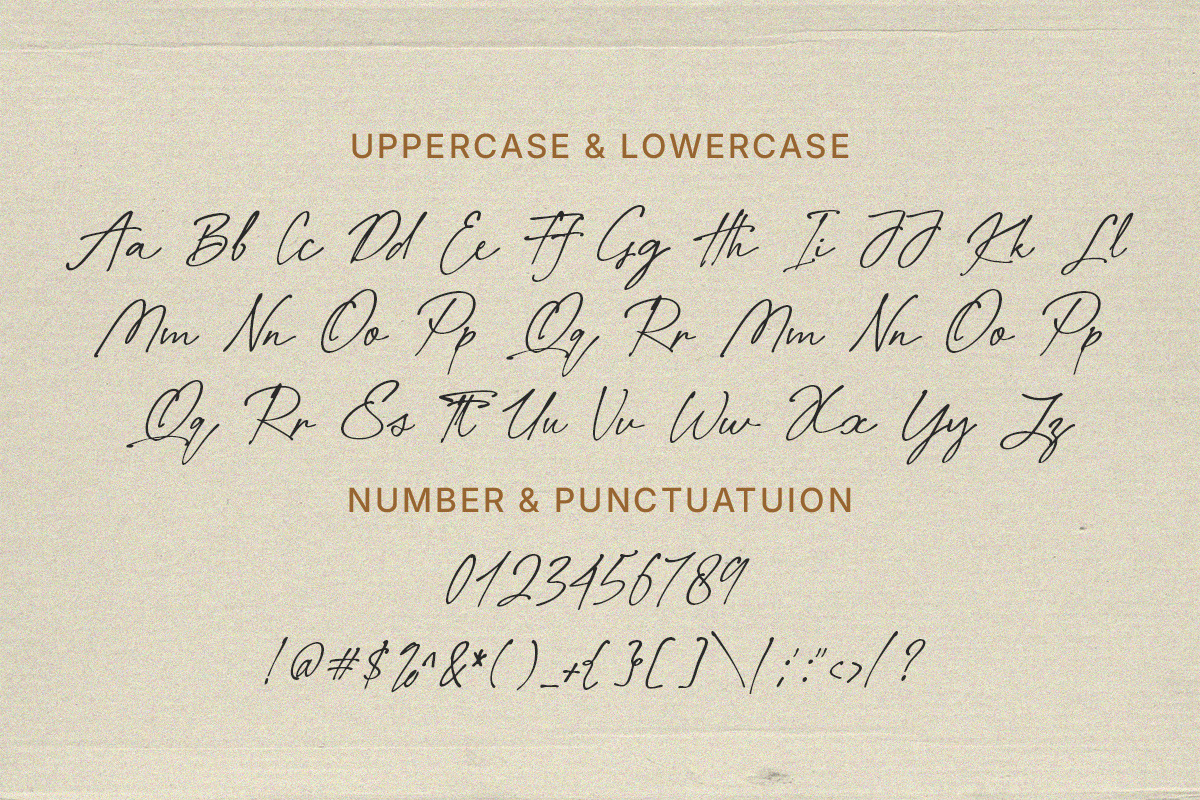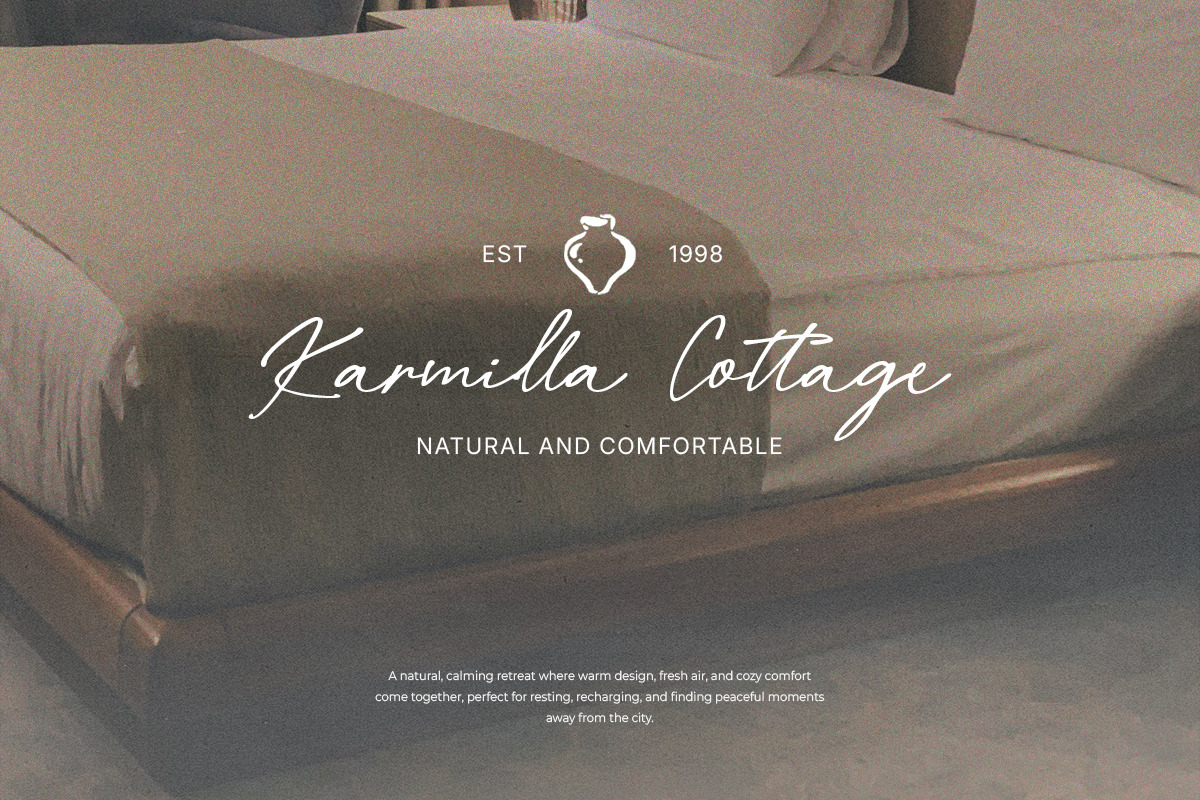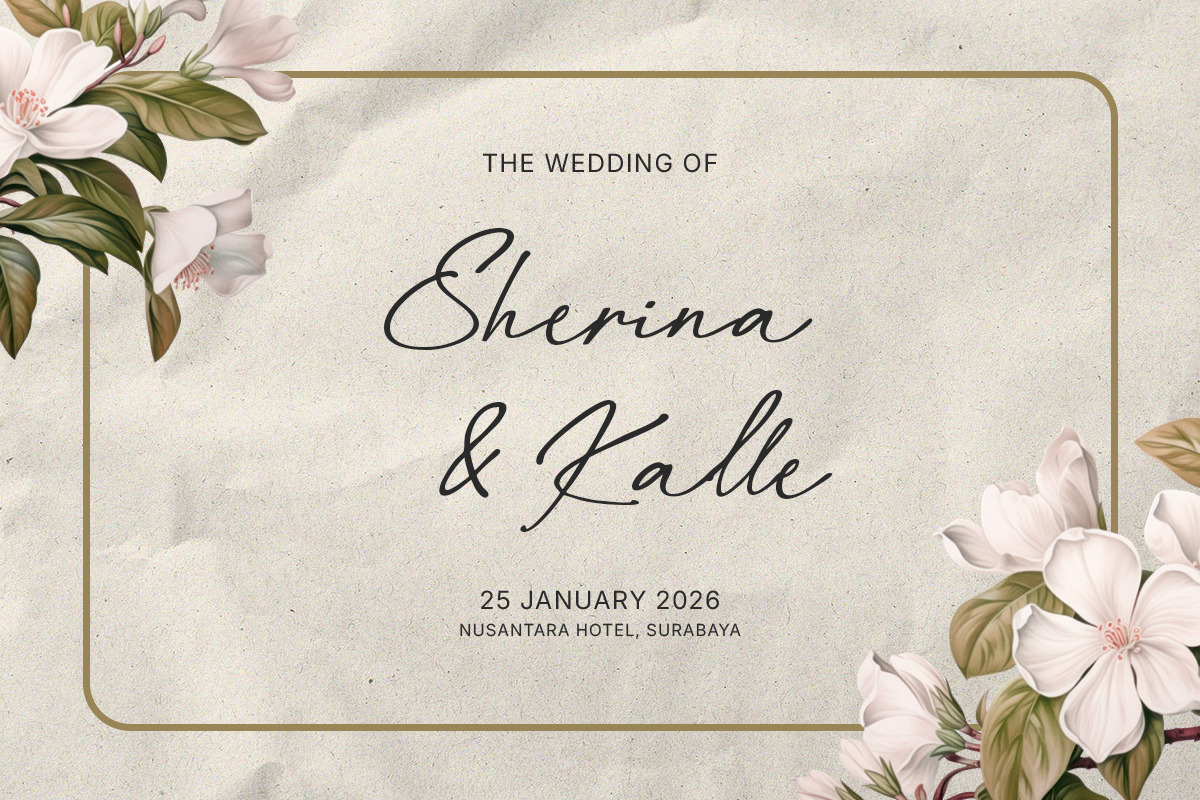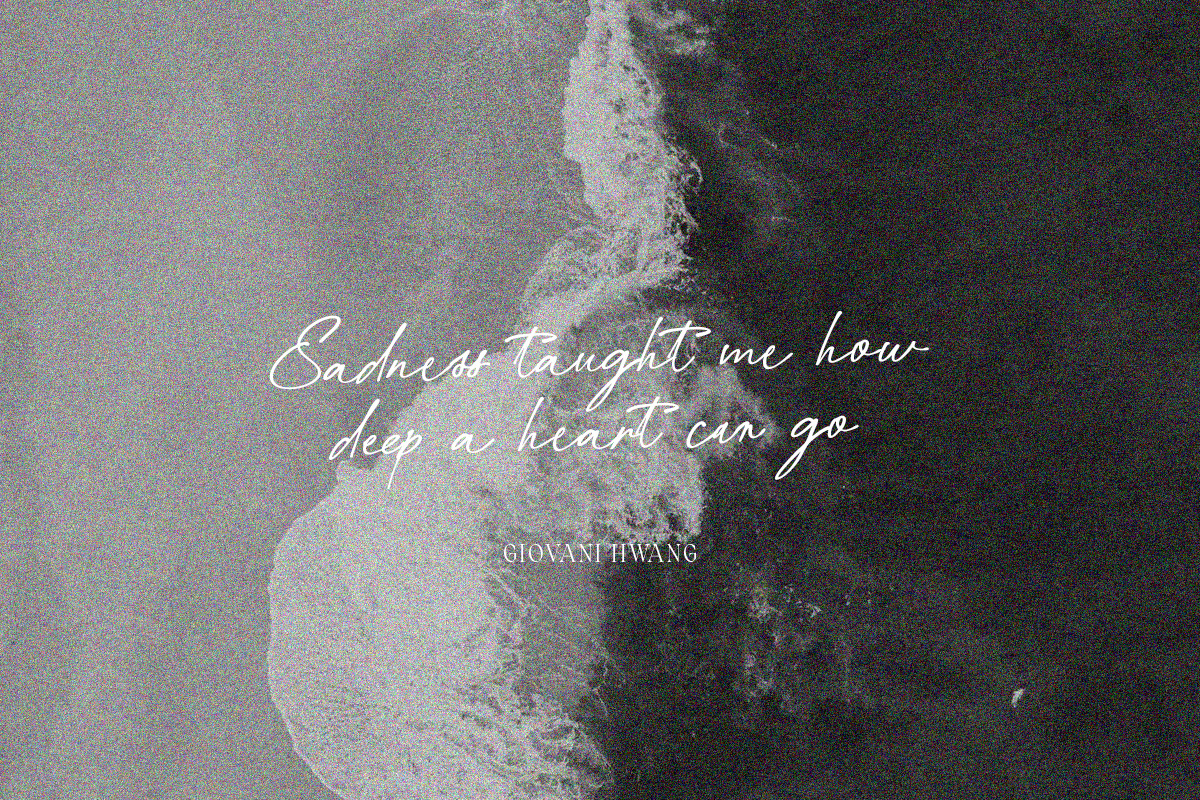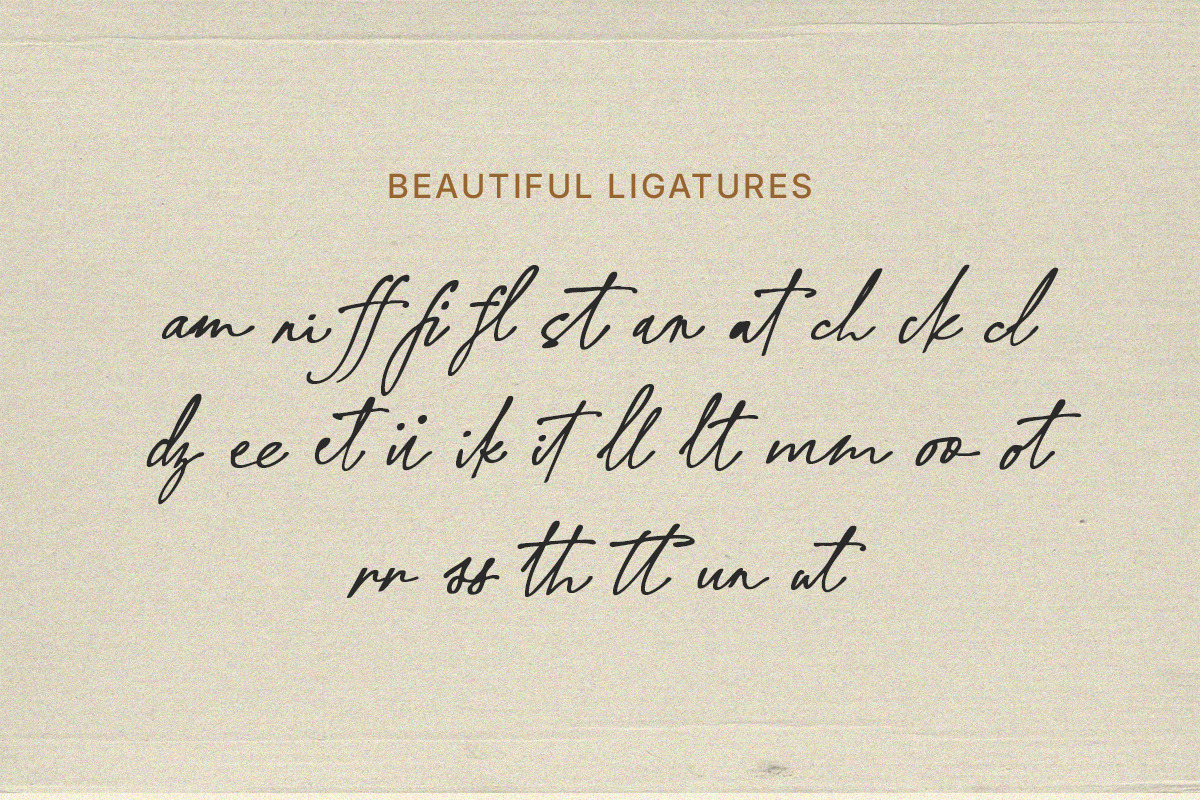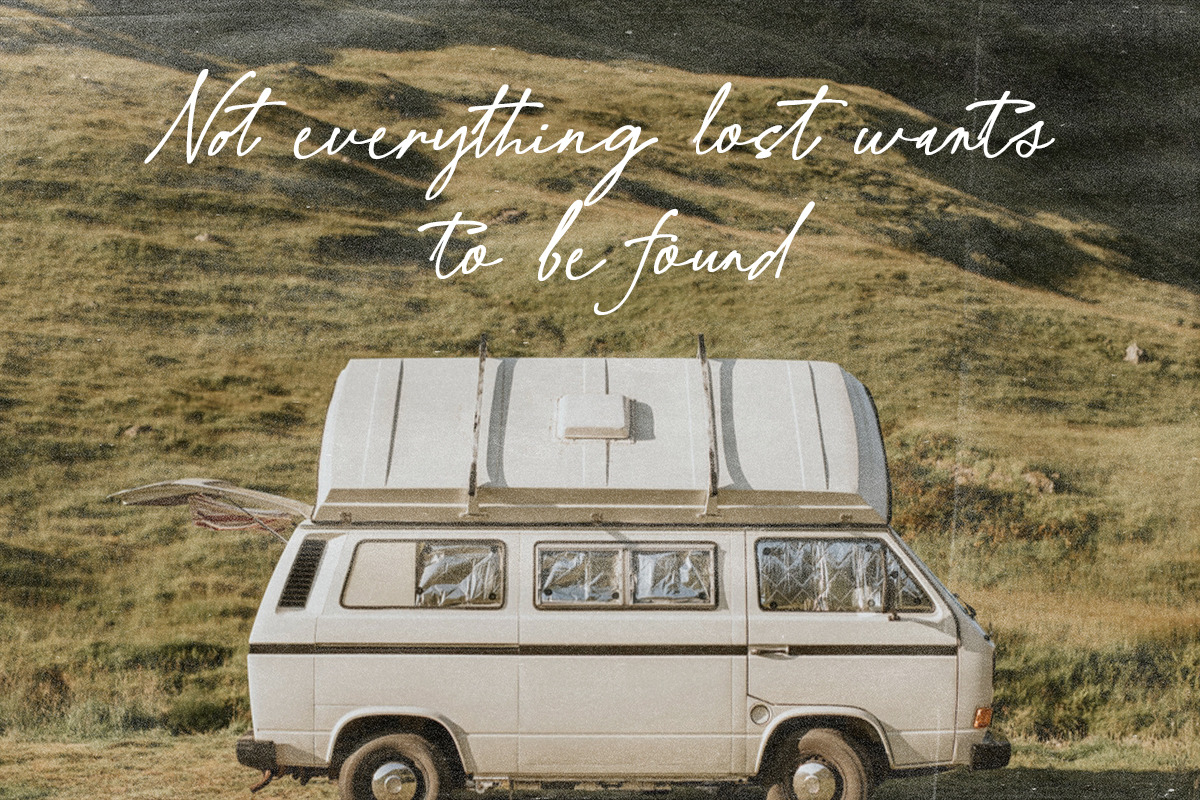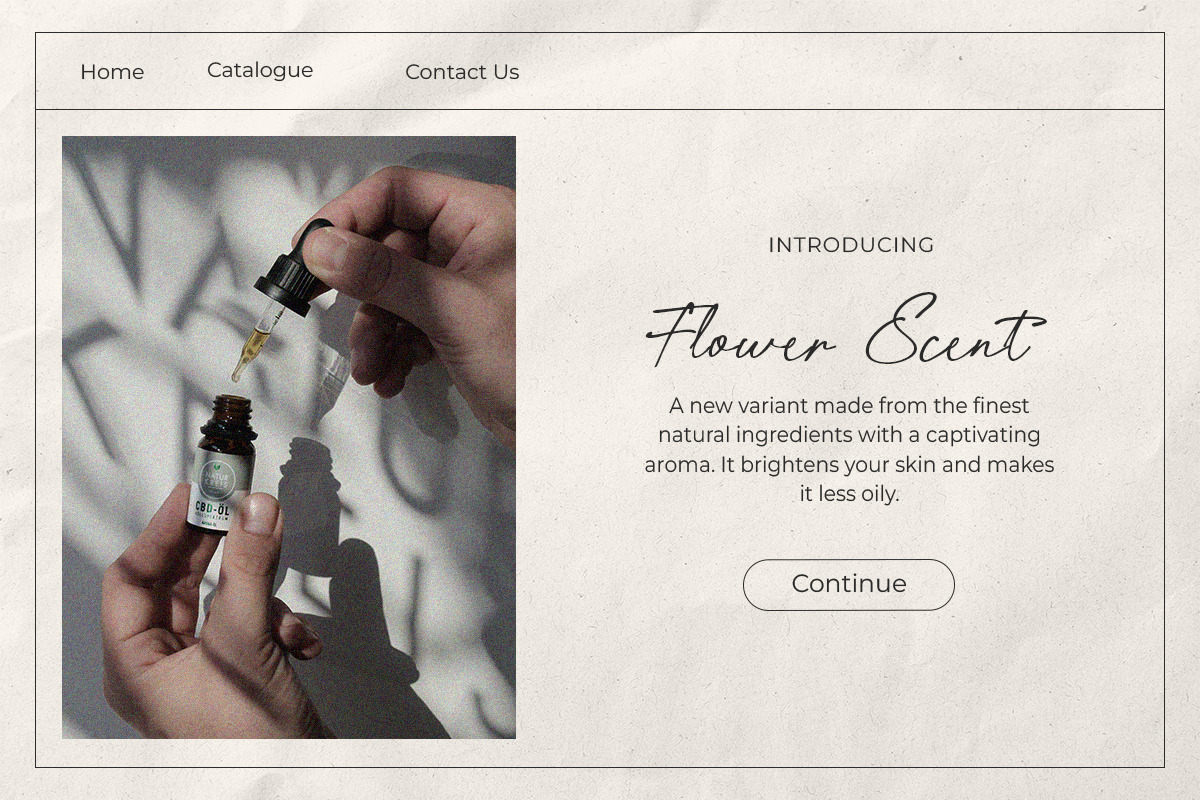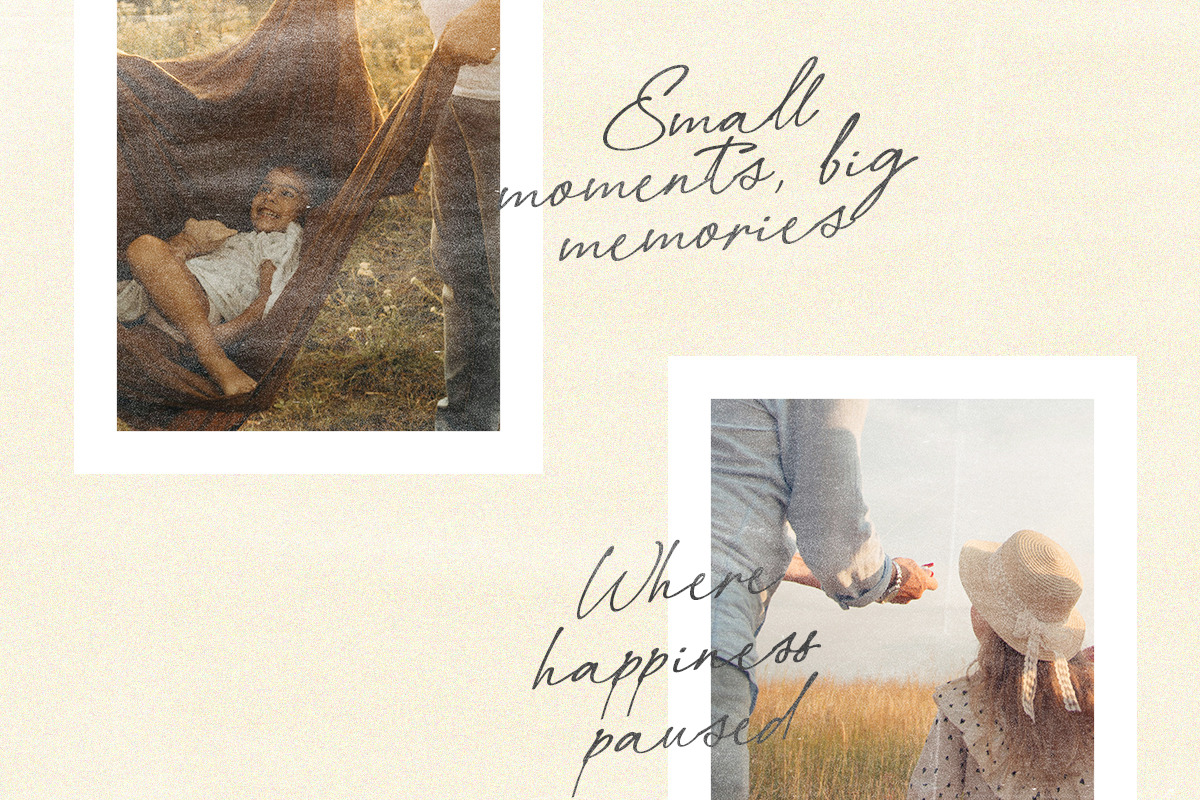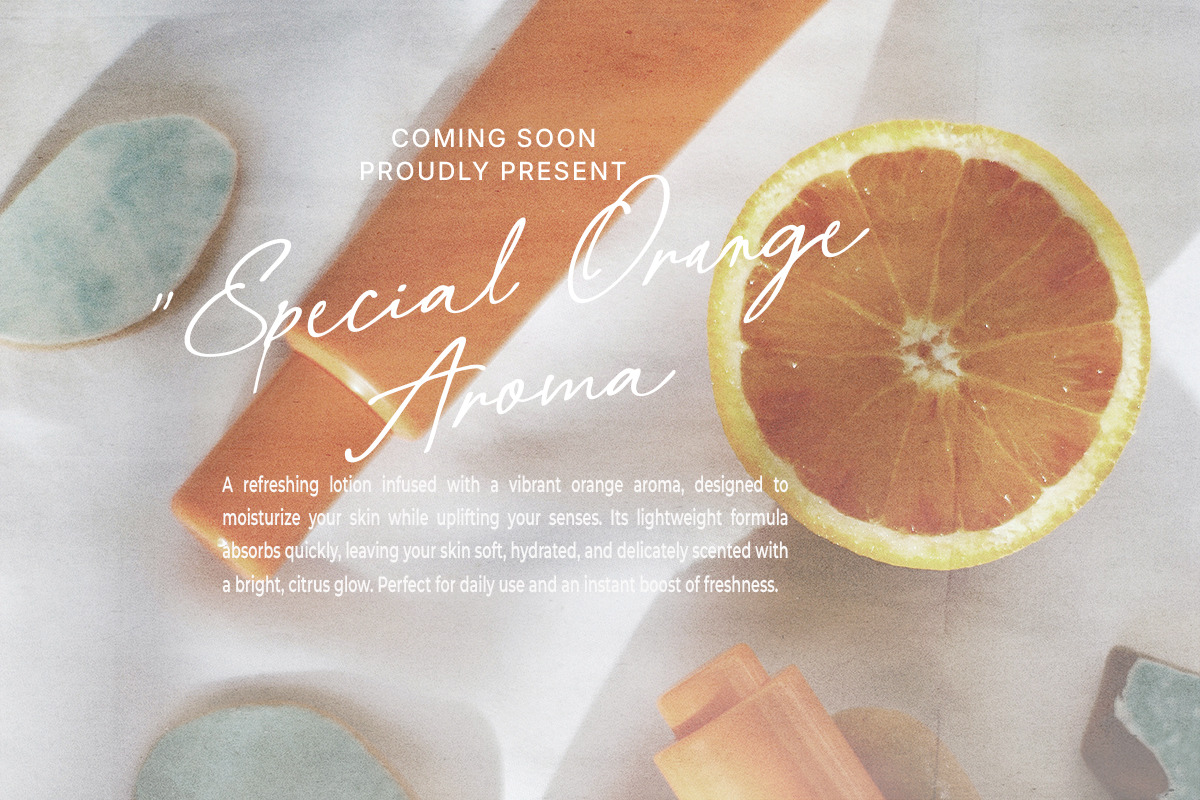
Befallite - Handwritten Script
Befallite is a handwritten script with stylish ligatures. You can use this font for many purposes, such as logo, branding, quotes, and wedding invitations. This font also good as pairing to your sans and script. With ligatures, this font will make your project even more have hand touch vibes. Befallite also support multi language.